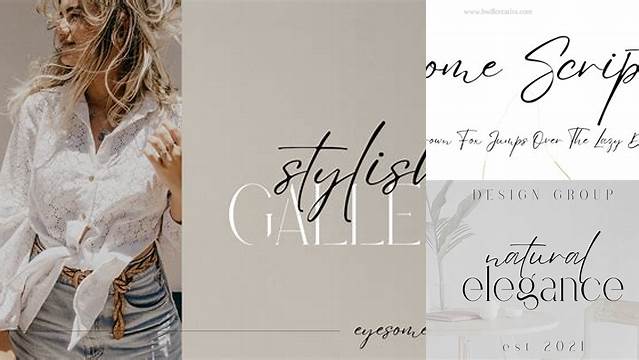
Eyesome Script Font: Free Download & Canva Guide
Hey everyone! 👋 Ever stumbled upon a font and thought, "Wow, I NEED that!"? Well, if you've been admiring the beautiful, flowing script of the Eyesome font, you're in the right place. Today, we're diving headfirst into everything about the Eyesome script font free download and how you can use it in Canva, the design platform we all know and love. Trust me, guys, this is gonna be a fun ride, packed with tips, tricks, and everything you need to make your designs POP! ✨
Eyesome Font: The Ultimate Guide
Alright, let's kick things off with a deep dive into the Eyesome font itself. This font is more than just a collection of letters; it's a statement! It's got that perfect blend of elegance and playfulness that can instantly elevate any design. Think of it as the secret weapon in your design arsenal. Whether you're working on a wedding invitation, a social media post, or a logo, Eyesome can bring that special touch that makes your work stand out. We're not just talking about its aesthetic appeal; we're also talking about the versatility it offers. From romantic to modern, Eyesome effortlessly adapts to different styles and purposes. Now, let's explore the features that make Eyesome truly exceptional. Its elegant curves, smooth strokes, and a touch of personality make this font incredibly readable and attractive. The font also comes in various weights and styles. The availability of alternative glyphs and ligatures allows you to customize and add flair to your text. Using Eyesome is a breeze. The ease of use and adaptability of this font makes it great for both beginners and experienced designers. With a bit of creativity, you can transform plain text into something extraordinary. Let's discover how you can get your hands on this beautiful font and start creating amazing designs!
Eyesome Font Features and Characteristics
Let's get down to the nitty-gritty of what makes the Eyesome font so special. This isn't just any script font; it's got a personality of its own. Its most defining feature is undoubtedly its fluidity. The letters seem to dance across the page, creating a sense of movement and grace. It’s like each character is carefully crafted with a brush, adding a personal touch to your designs. The balance between its elegant appearance and readability is impressive. It's not just about looking good; it's also about being functional. The design includes well-defined letterforms that can be read easily, even at smaller sizes. Eyesome also offers extensive character support. With a variety of glyphs, including initial and terminal forms, as well as numerous ligatures, the font will provide endless customization options. These features let you add more style to your text and make it unique. You can easily create designs that are unique and attractive. Because of these qualities, Eyesome fits various purposes. Whether you're designing wedding invitations, creating eye-catching social media posts, or adding a professional touch to your branding, this font has something for everyone. The beauty of Eyesome is that it's not limited to a single style or application. It offers a versatile tool that can take any design project to the next level. Understanding these features is the first step to utilizing this font's potential. The elegant curves and smooth strokes make this font beautiful and perfect for various designs.
Eyesome Font Style Variations
Dive into the world of Eyesome to discover the varied styles and nuances that make it an adaptable option for any design. The original Eyesome font is the foundation, with flowing script and elegant curves that exude sophistication. It serves as a great starting point for a variety of creative applications. However, it's the variations that show the font's true versatility. Often, you can find Eyesome in different weights, such as bold, regular, and light. This gives you control over the visual weight of your text, enabling you to create contrast and highlight the important aspects of your design. Certain versions may have alternative glyphs and ligatures, which let you customize the font further. Ligatures create special letter combinations to improve the design's overall appeal. The addition of these features gives your text a distinct and creative look. There might be specialized variations of the Eyesome font designed for certain applications. The variations cater to particular design needs, from headings and body text to logos and other branding materials. Exploring these variations allows you to choose the perfect version of Eyesome for your specific design project. Understanding these variations and exploring the different features can help you make the most of the Eyesome font and transform your designs. The wide range of options ensures that you'll find the right look to meet your specific design needs. In exploring these possibilities, you can fully appreciate the versatility and beauty of this script font.
Eyesome in Canva: A Perfect Match
Design Tips: Using Eyesome Font in Canva Effectively
Now that you've got the Eyesome script font free download installed in Canva, let's talk design tips. This font is beautiful, but knowing how to use it effectively is key to creating stunning visuals. First, use the font strategically. Eyesome is ideal for headings, titles, and short phrases where you want to add elegance. Avoid using it for long blocks of text, as it can become difficult to read. Pair Eyesome with a simple, clean font. A sans-serif or a classic serif font will provide the perfect contrast. This balance will make your design visually appealing. Play around with the size and the color. Adjusting the size to make it prominent will help create a visual hierarchy. Experiment with colors that complement the font's style. White or light colors on dark backgrounds create a classic look. You can also use color schemes to make your designs unique. Take advantage of Canva's features. Use Canva's text effects, such as shadows, outlines, and curves, to add interest to your text. Make sure your design maintains a professional appearance. Avoid crowding elements together; use negative space to make your design clean and easy to read. Always consider your audience. Tailor your designs to suit your target audience. Ensure your message is clear and engaging by focusing on the font's legibility. These simple tips will help you create stunning designs that capture attention.
Conclusion: Unleash Your Creativity with Eyesome
Alright, guys, we've covered a lot today! From getting your Eyesome script font free download to using it like a pro in Canva, you're now equipped to create some seriously stunning designs. Remember, design is all about having fun and expressing yourself. So go out there, experiment with Eyesome, and let your creativity run wild! 🚀 Don't be afraid to try new things, mix and match, and make this beautiful script font your own. Whether it's wedding invitations, social media posts, or even just some fun personal projects, Eyesome is sure to add that special touch. Thanks for hanging out with me today, and happy designing! 🎉